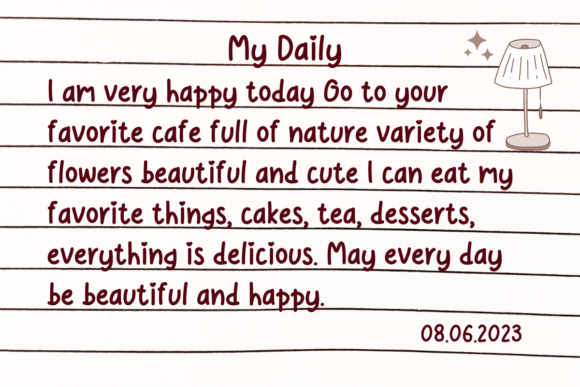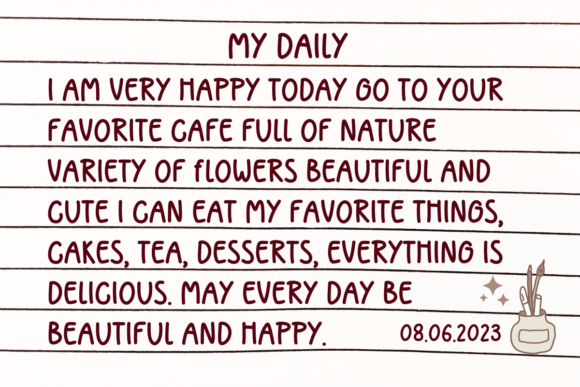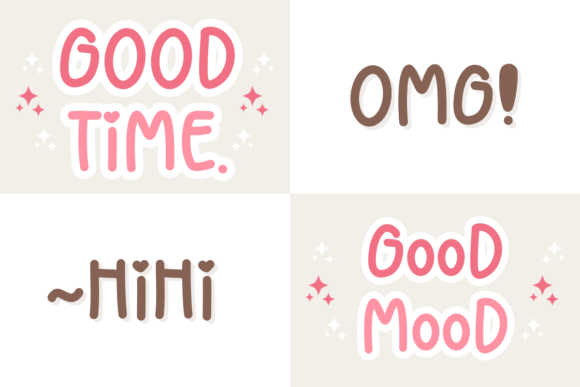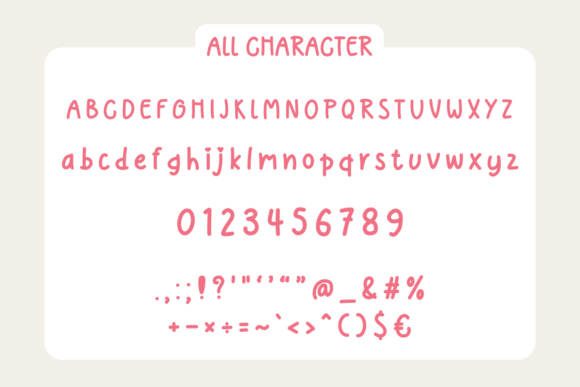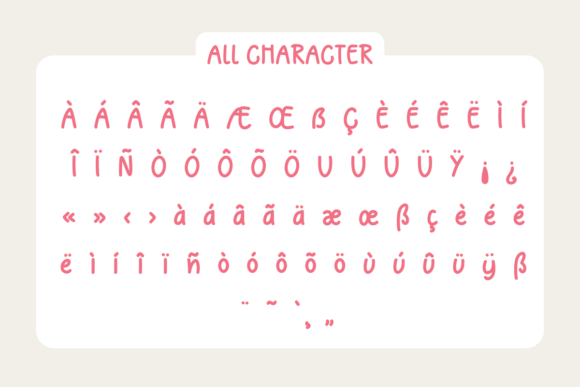
Introduction to Paper Clip Font
Paper Clip is a cute handwritten font Simple and cute, yet charming, can be used to create a variety of works.
Versatile, can be used in a variety of applications from crafts for kids, teachers, to greeting cards text on the product to become the centerpiece of your design.
Key Features of Paper Clip Font
Why Choose Paper Clip Font?
Paper Clip Font offers exceptional quality and versatility, making it a valuable addition to your design toolkit. Whether you’re creating for personal projects or commercial use, Paper Clip Font delivers professional results.